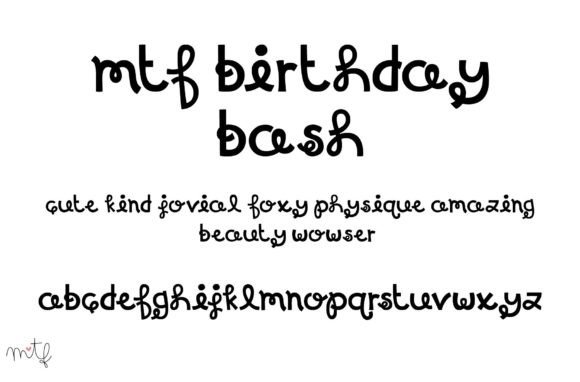
Welcome to the enchanting world of Birthday Bash Duo Font! This font duo is a glorious symphony of swirly and fun handwritten script combined with an enchanting assortment of birthday-themed doodles. Created by the renowned Miss Tiina, this duo is the perfect dance partner for your imagination.
Embrace the playful curves and vibrant energy of Birthday Bash, a font that's as cheerful as a confetti-filled celebration. Its lively strokes and mischievous charm will add a touch of whimsy to your creative projects, captivating your audience with its irresistible allure. Transport your designs to new heights of delight as this dynamic duo takes center stage.
With Birthday Bash Duo Font, you'll have the power to transform your birthday-inspired designs into captivating masterpieces. Whether you're crafting invitations that sparkle with excitement, designing posters bursting with joy, or creating social media posts that shimmer with delight, this font duo will make every letter a celebration.
Immerse yourself in the magical world of Birthday Bash Duo Font. Let its captivating charm weave its way into your designs, igniting smiles and spreading happiness wherever it goes. Experience the magic of Birthday Bash today and unlock a world of limitless creativity!